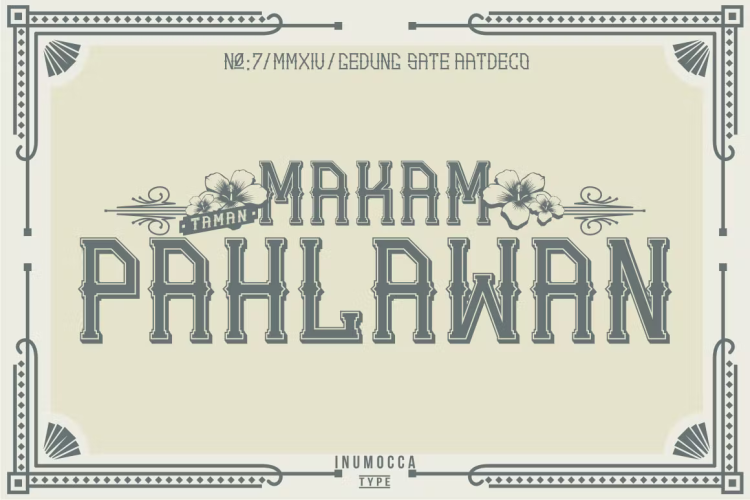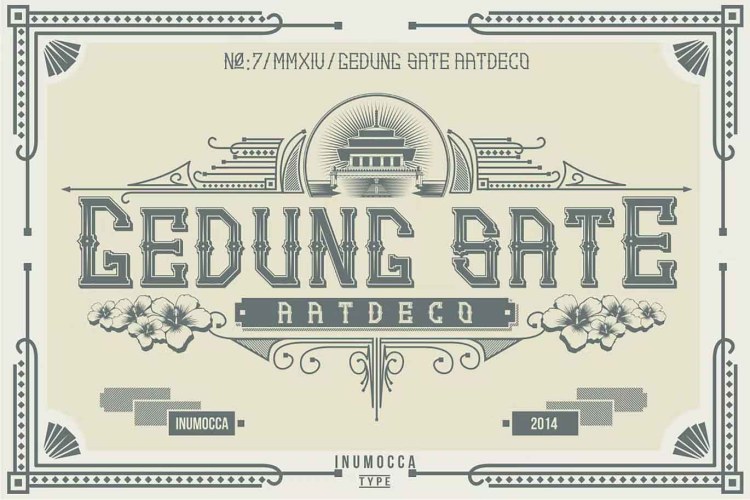
GS.ArtDeco Family Font
Gedung Sate Artdeco inspired from Ornament,Building and architectural style of Gedung sate Building in Bandung, West Java, Indonesia its really great font for your band,…
Gedung Sate Artdeco inspired from Ornament,Building and architectural style of Gedung sate Building in Bandung, West Java, Indonesia
GS.ArtDeco Family Font gives long-form text a classic, trustworthy rhythm — ideal for magazine spreads, annual reports and book interiors.
Pair GS.ArtDeco Family Font with generous letter-spacing for wordmarks in fashion, hospitality, wine and jewellery branding.
GS.ArtDeco Family Font is a Serif Fonts typeface tagged Classic, Packaging, Poster, Serif. It works well for headlines, logos, posters, social media graphics and branding projects that need a distinctive serif fonts look.